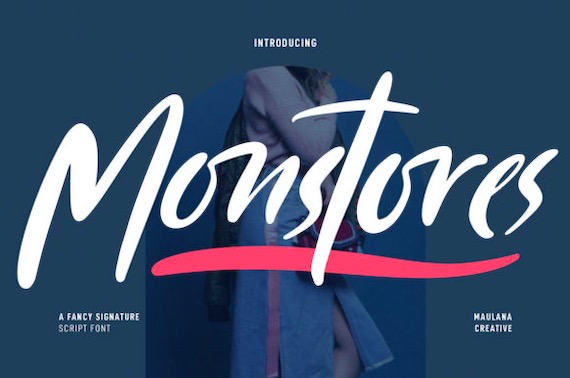
Monstores Font is a fancy signature handwritten script typeface that was created and shared by Maulana Creative. Monstores will look stunning on many different designs such as quotes, logos, thank you cards, business cards, wedding invitations, greeting cards, and every other design which needs a customized touch.
Monstores Fancy Script Font